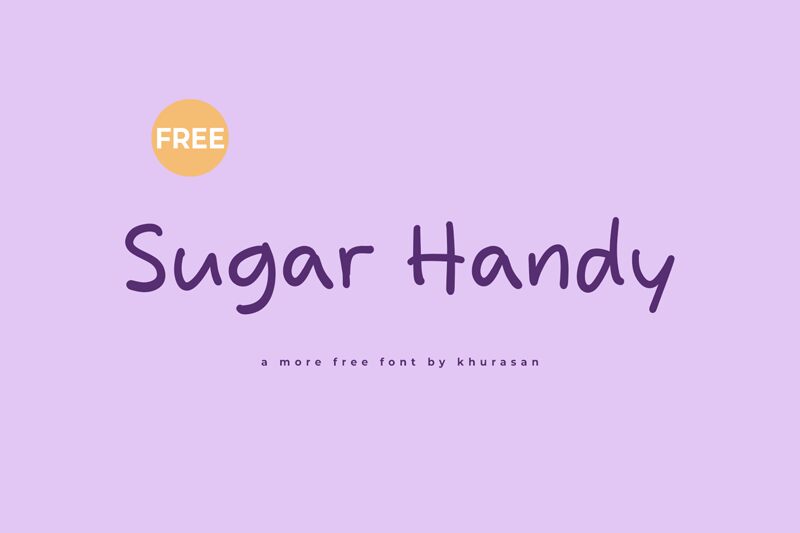
Sugar Handy
Sugar Handy is a delightfully expressive handwritten font that exudes a playful charm. Designed by Khurasan, this font masterfully captures the organic, freestyle nature of handcrafted lettering. With its bold, sweeping strokes and elegant flourishes, Sugar Handy radiates a sense of warmth and personality, making it an ideal choice for a wide range of design applications.
Whether you're crafting an eye-catching logo, designing a whimsical greeting card, or adding a touch of personal flair to your social media posts, Sugar Handy's unique character is sure to captivate. Its versatility shines through, lending itself equally well to both formal and casual settings, making it a valuable addition to any designer's toolkit.
Embrace the inherent vibrancy and individuality of Sugar Handy, and let it elevate your creations with its distinctive, handcrafted aesthetic.